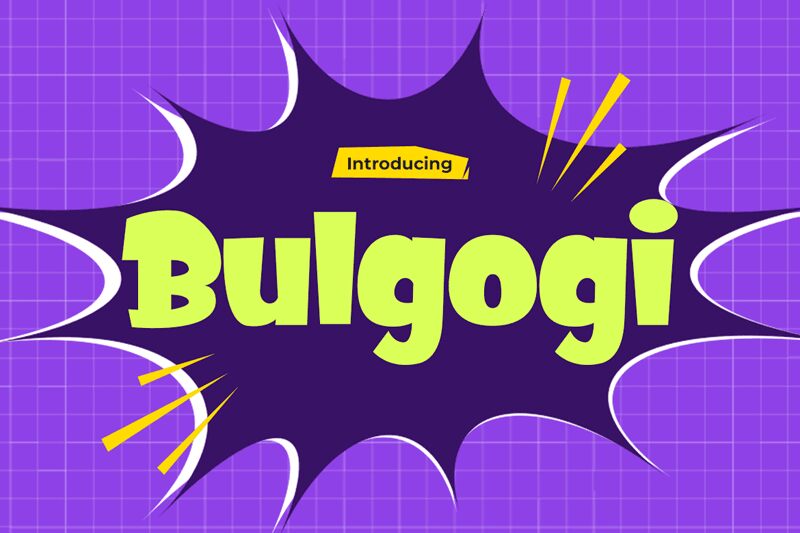
Bulgogi font by Pinisiart is a free cartoon font with an energetic and friendly character. Thanks to its thick strokes and comic-inspired appearance, its letters look eye-catching and approachable. The font provides a fun look without feeling very childish or amateur which makes it perfect for a wide variety of projects.
Use Bulgogi font for books, magazines, ads, posters, banners, social media posts, websites, brochures, and other digital or print applications. The typeface is a great addition for kid-related projects such as packages, cartoon covers, games, and more!